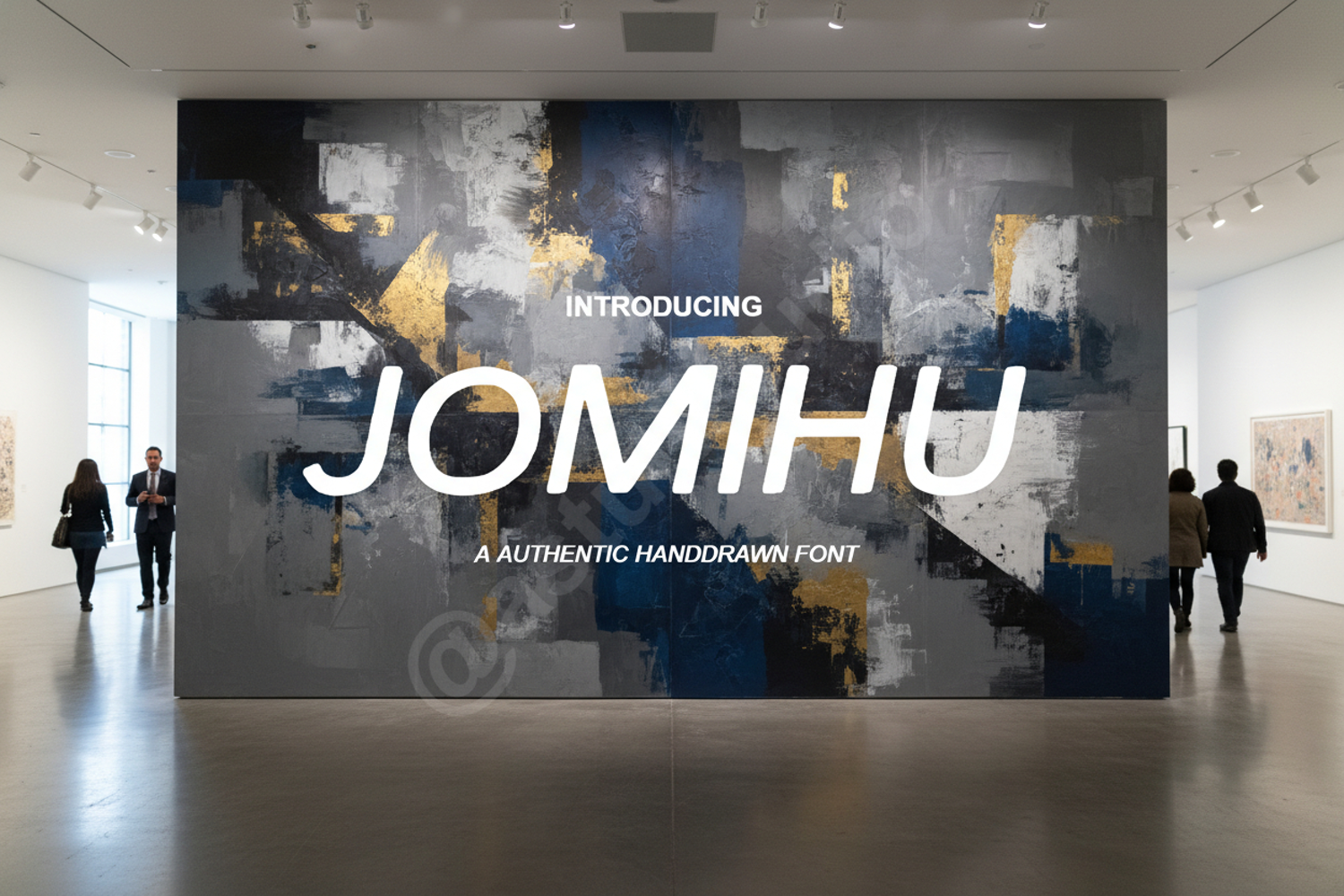
Jomihu - Elegant Modern Serif Typeface
Jomihu
Jomihu is a premium serif typeface that strikes the perfect balance between classic elegance and contemporary minimalism. Crafted with precision, this font offers a sophisticated touch to any creative project, making it a versatile addition to your design toolkit. Its clean lines and balanced proportions ensure high readability while maintaining a high-end aesthetic.
- Branding and Identity: Create memorable logos and corporate stationery with a timeless feel.
- Editorial Design: Perfect for magazine headers, book covers, and sophisticated layouts.
- Wedding Stationery: Add a touch of class to invitations, menus, and place cards.
- Social Media: Elevate your digital presence with stylish quote graphics and headers.
- Product Packaging: Ideal for luxury goods, boutique labels, and retail packaging.